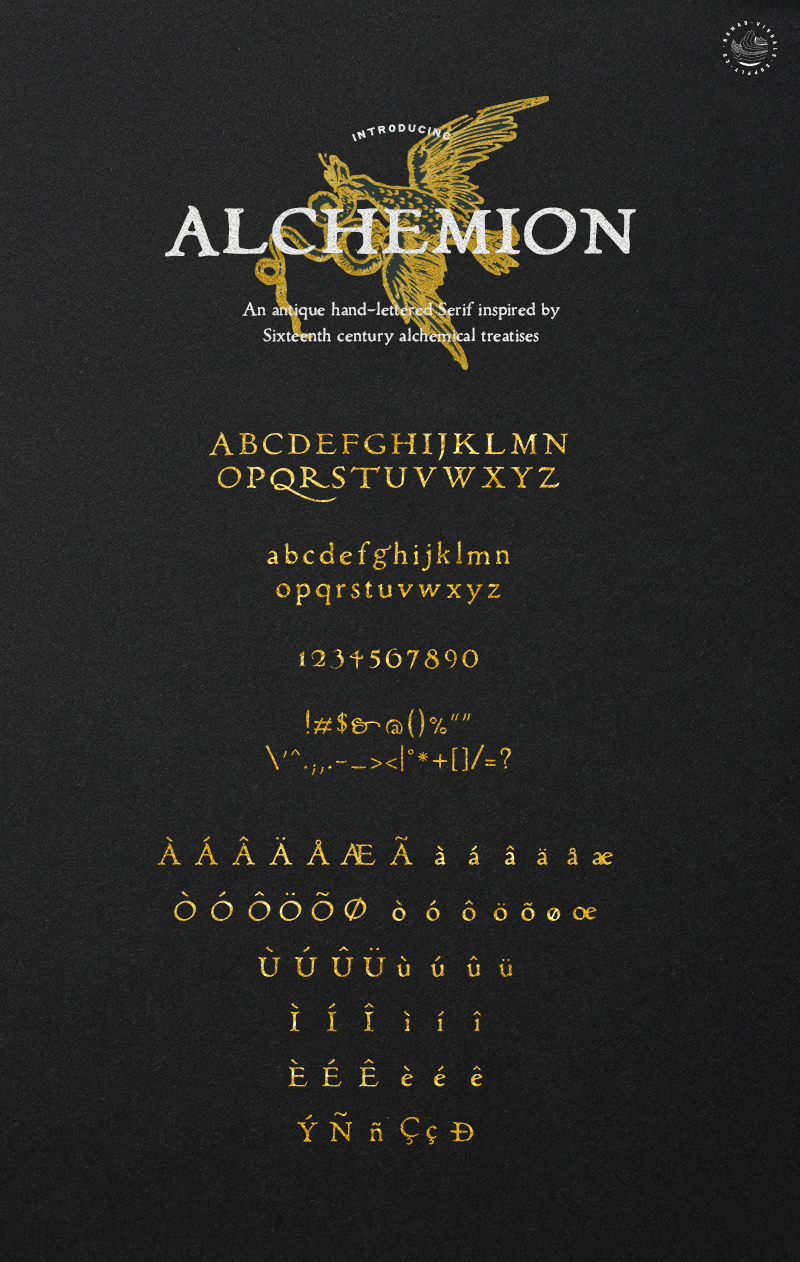
Alchemion � Display Serif font Full set and commercial license available at http://bit.ly/Alchemion-Commercial-Use --- Alchemion is an antique hand-lettered display serif font based on Sixteenth century alchemical treatises. Dive in the fascinating look and feel of centuries old books! This font looks amazing for logo design, invitations and labels. It's perfect to give a unique vibe to your digital products and websites. The demo font includes only lowercase characters, if you wish to use numbers, punctuation and special characters for international languages please get the premium version at http://bit.ly/Alchemion-Commercial-Use Thank you :) Nomad Visuals Co.� |